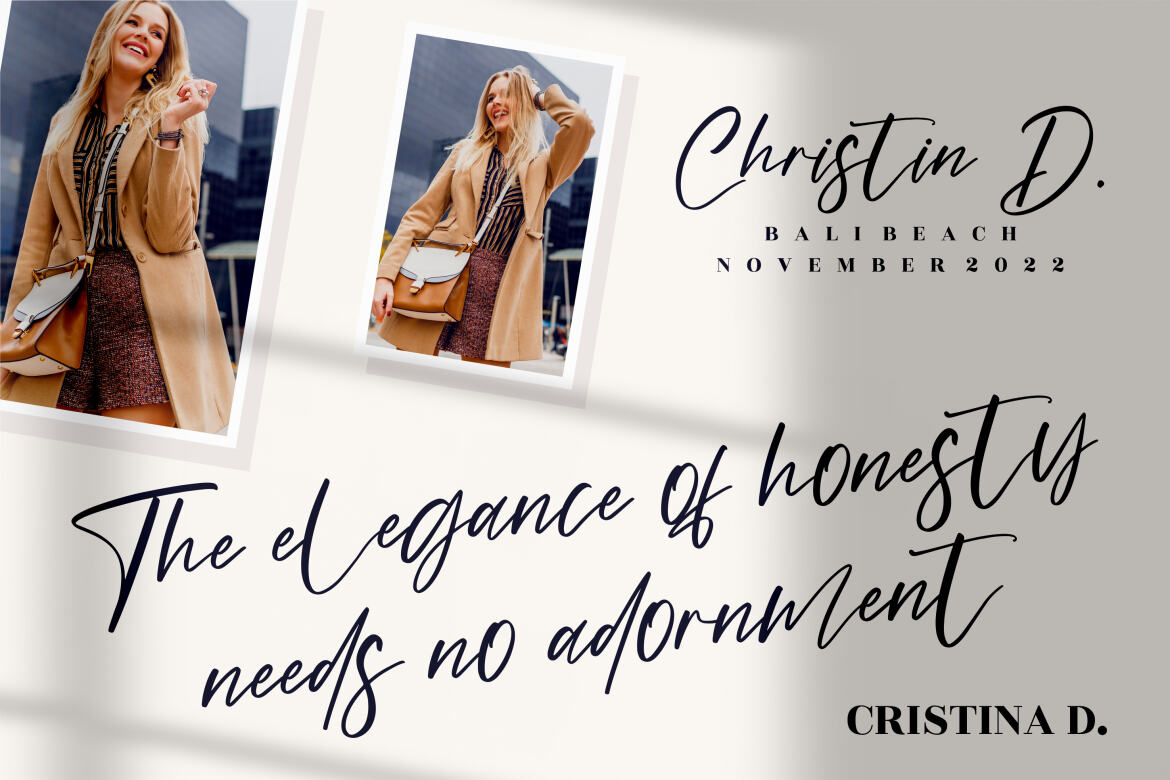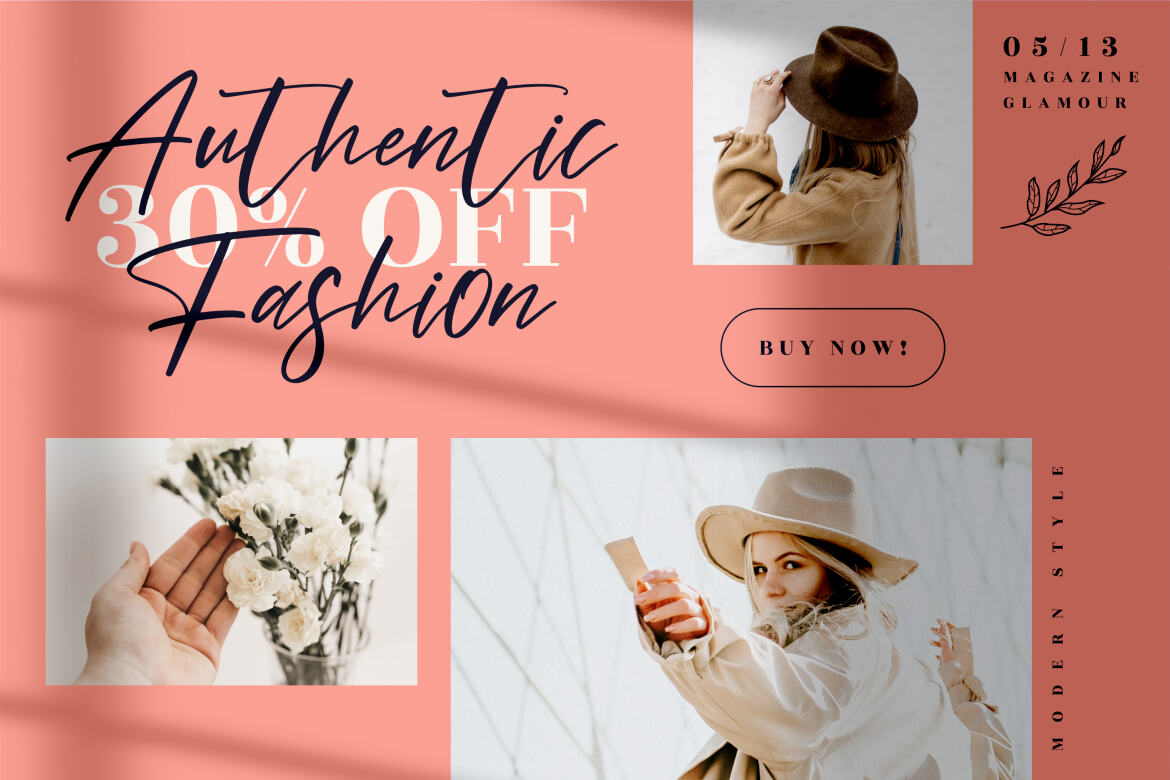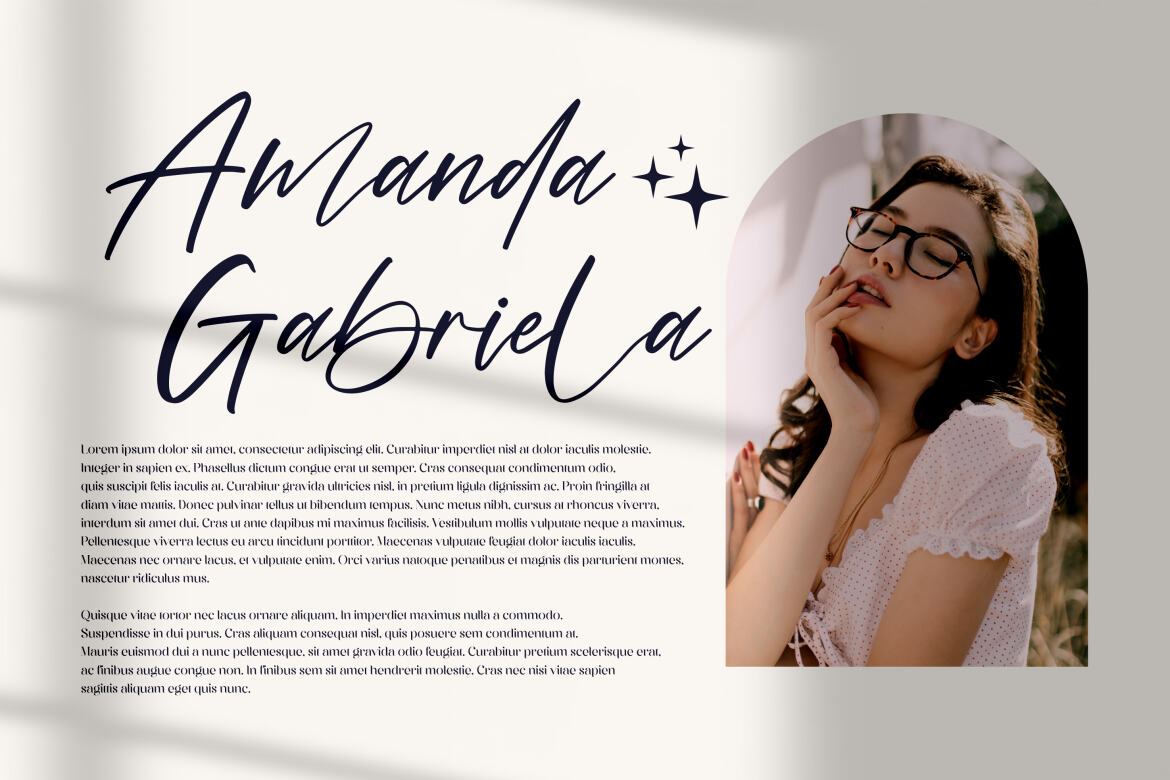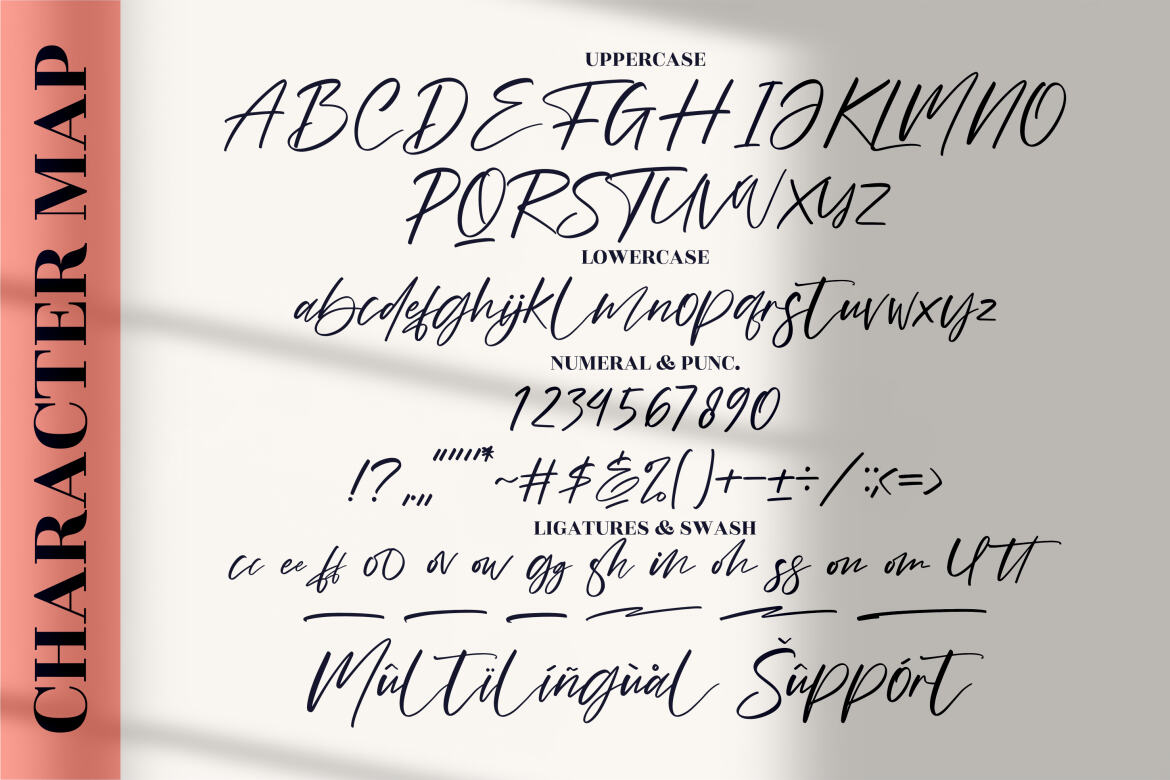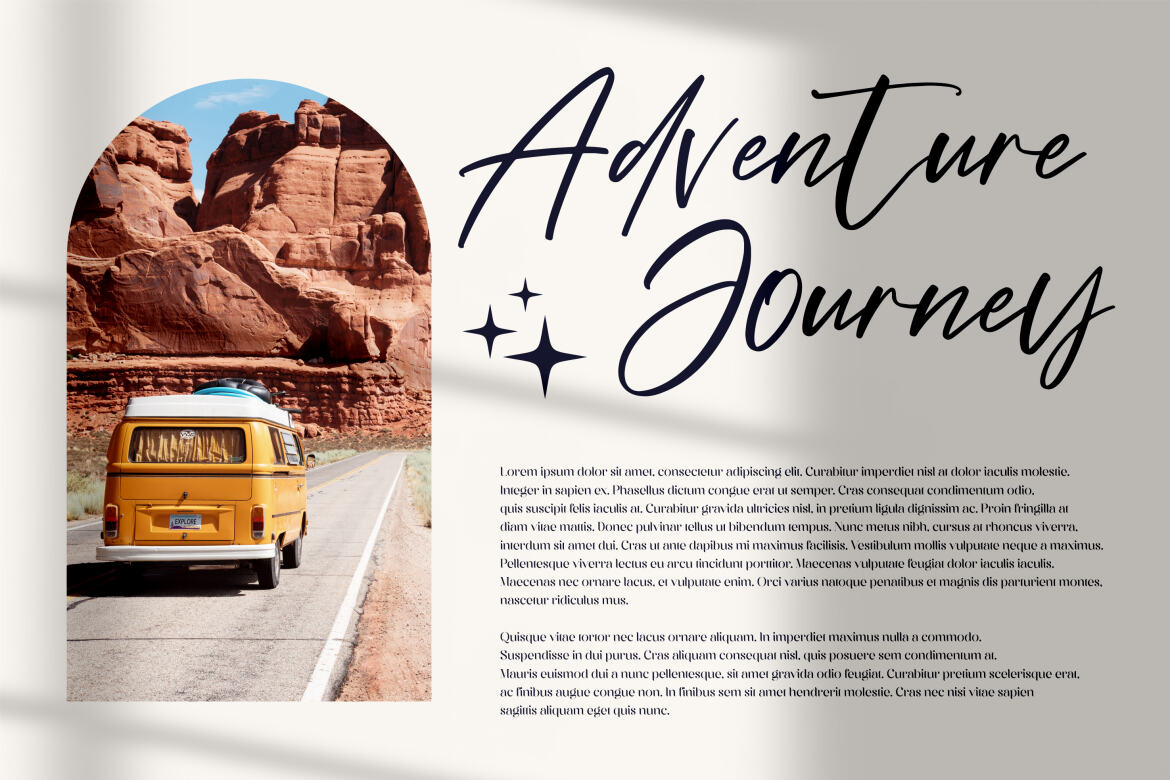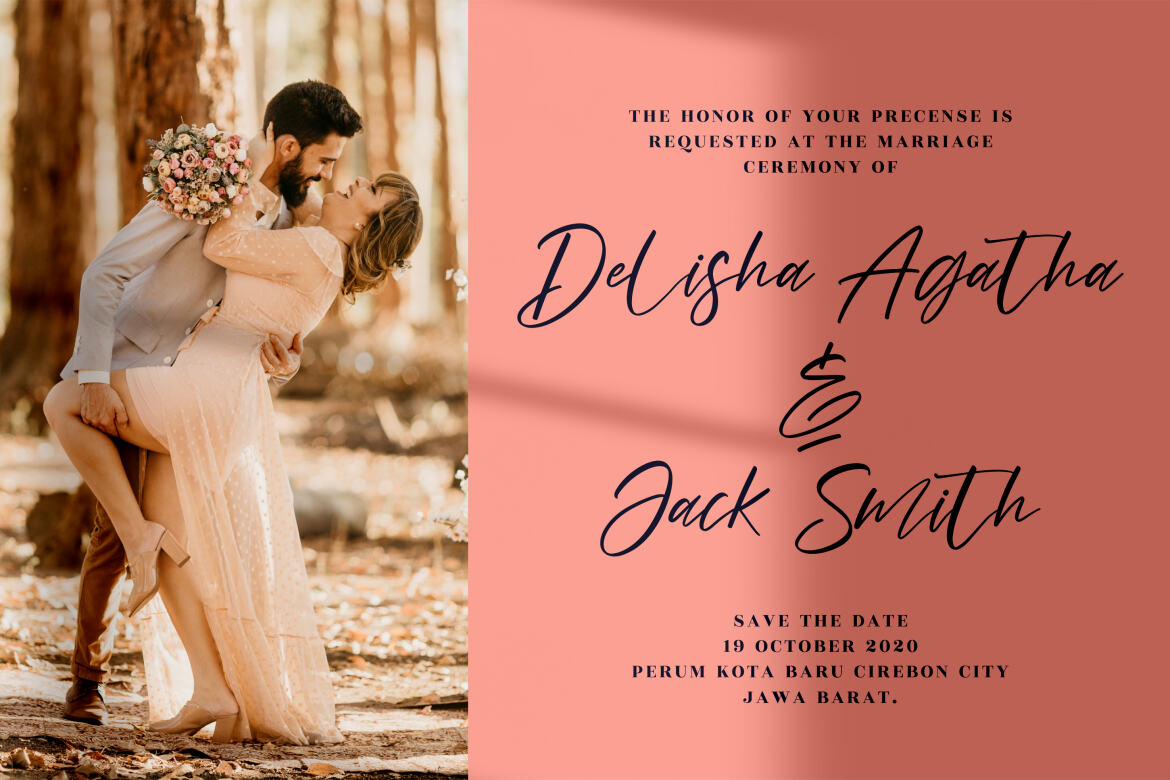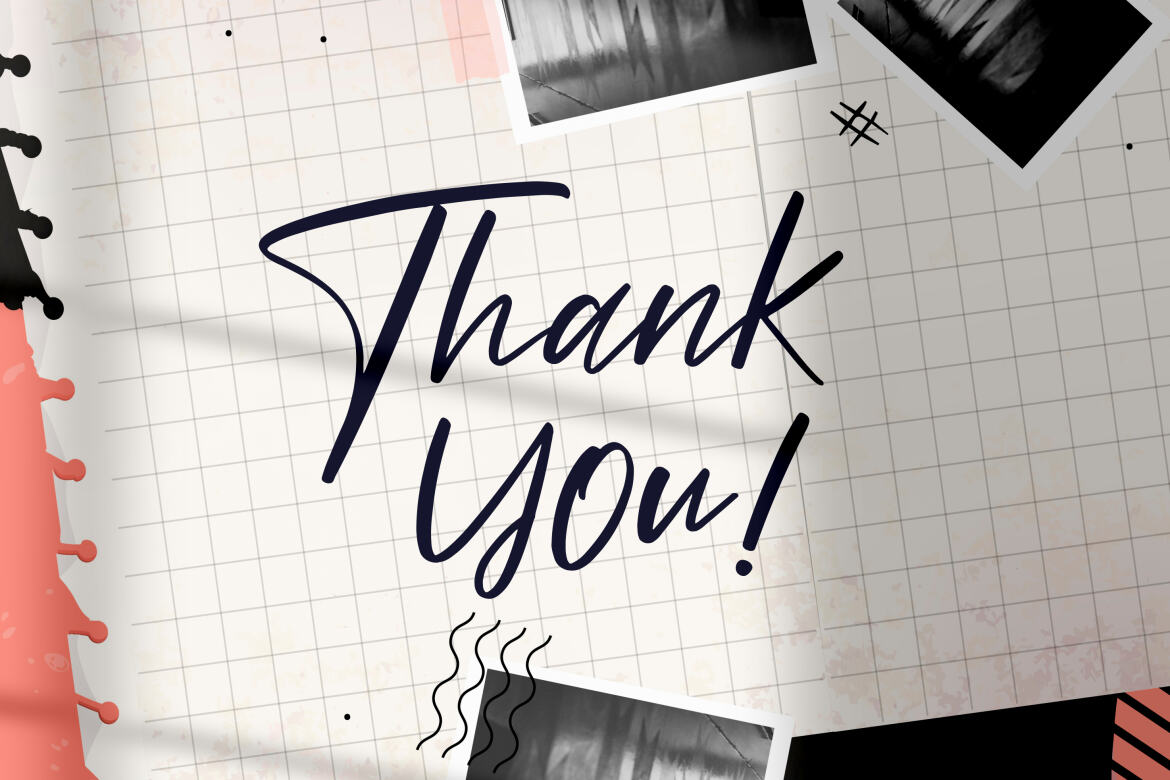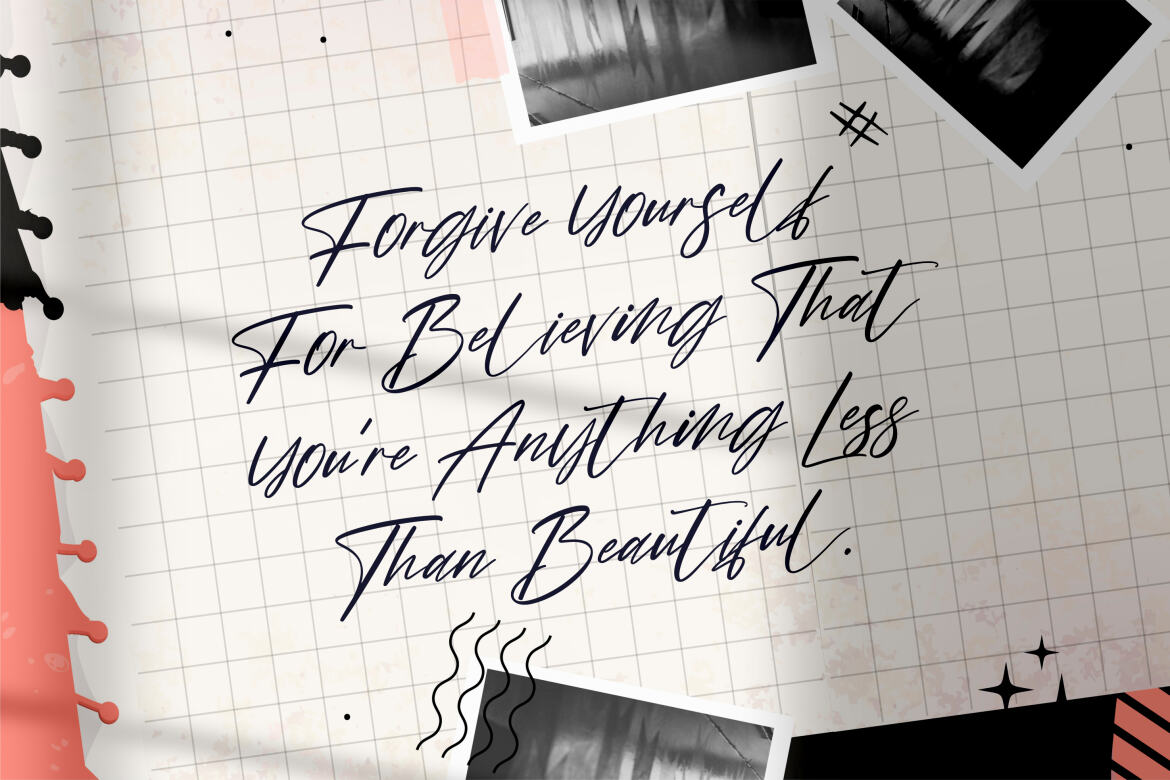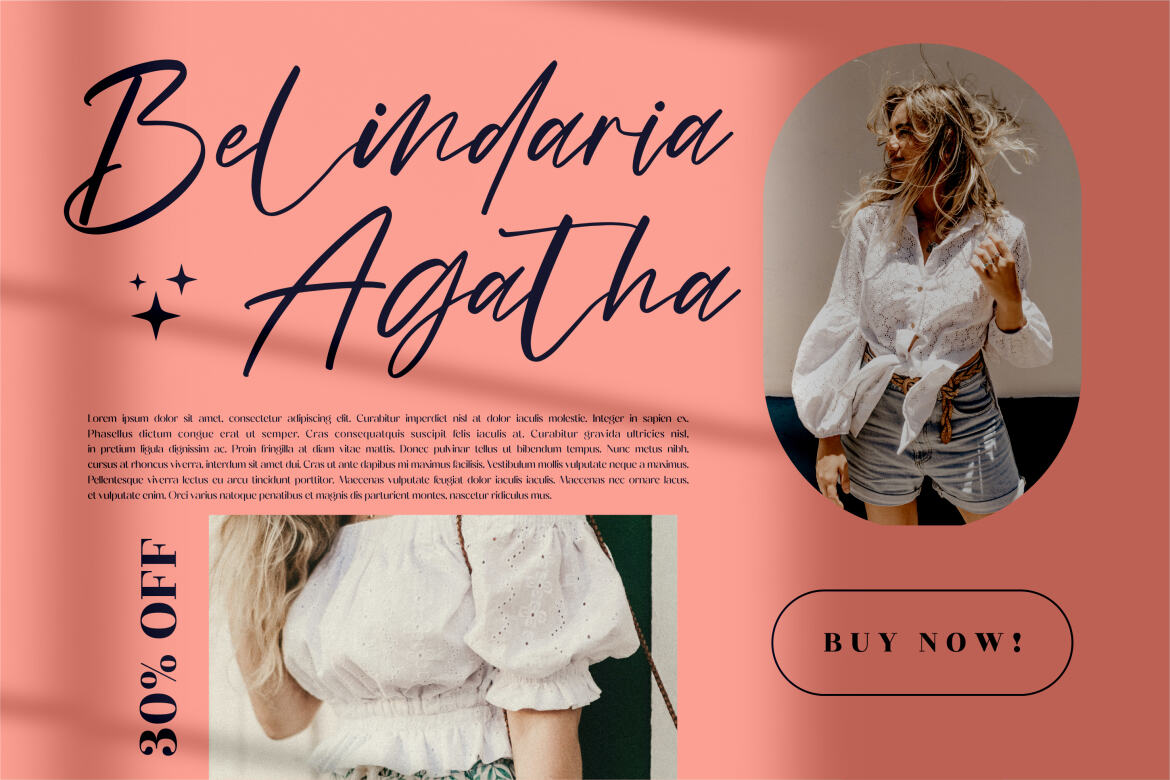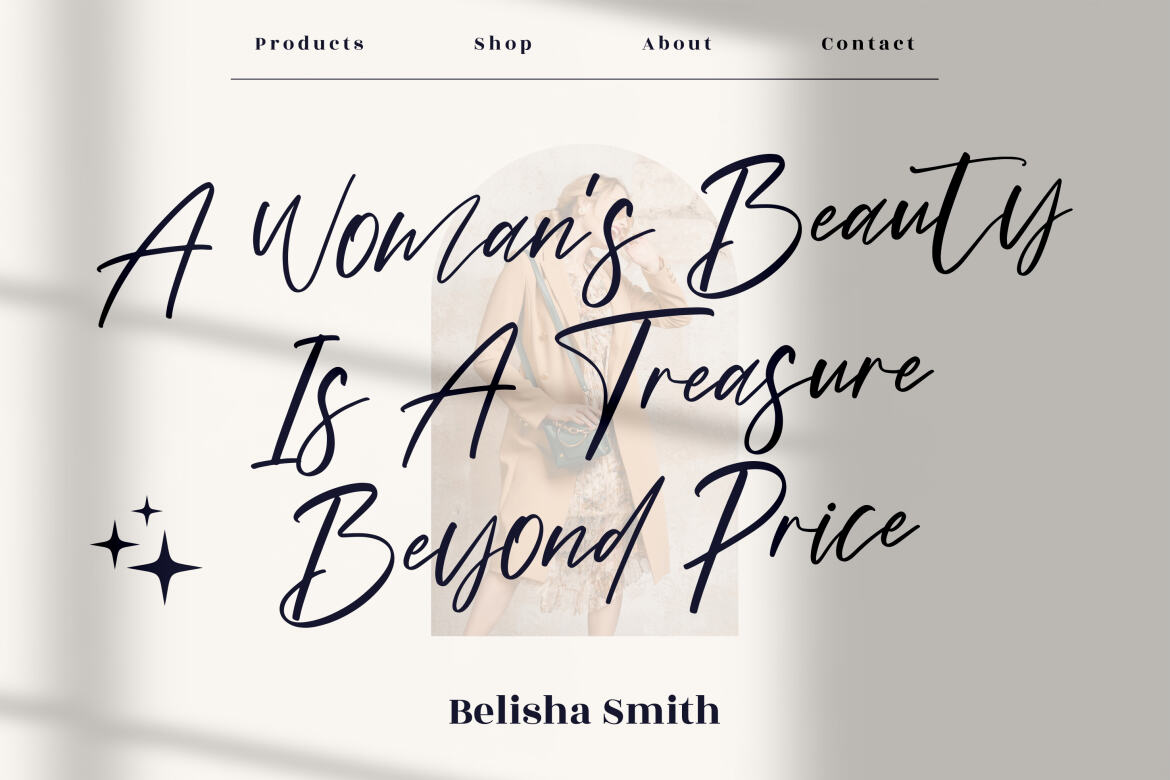
Mistical - FREE Handwritten Font
Mistical - Beautiful Handwritten Font, from Perspectype Studio, is a handwritten font, suitable for any projects such as: logos, branding projects, homeware designs, product packaging, mugs, quotes, posters, shopping bags, t-shirts, book covers, name card, invitation cards, greeting cards, label, photography, watermark, special events, and all your other luxury projects that need a handwritten taste.